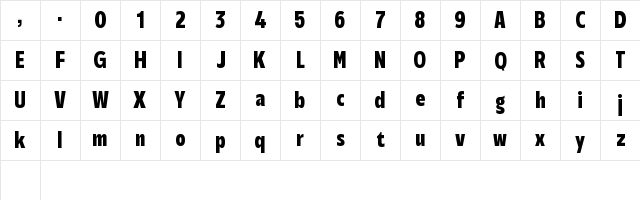
Performa Cn Bold Regular
Foundry: Resistenza Type Foundry
Designer: Resistenza Type Foundry
Complete Performa Cn Bold Regular glyph index. Displaying only characters natively supported by Performa Cn Bold Regular font.
Design Context for Performa Cn Bold
Performa Cn Bold is a composed and adaptable typeface that performs quietly and consistently across a wide range of design contexts. Its bold stroke weight gives it real presence on the page.